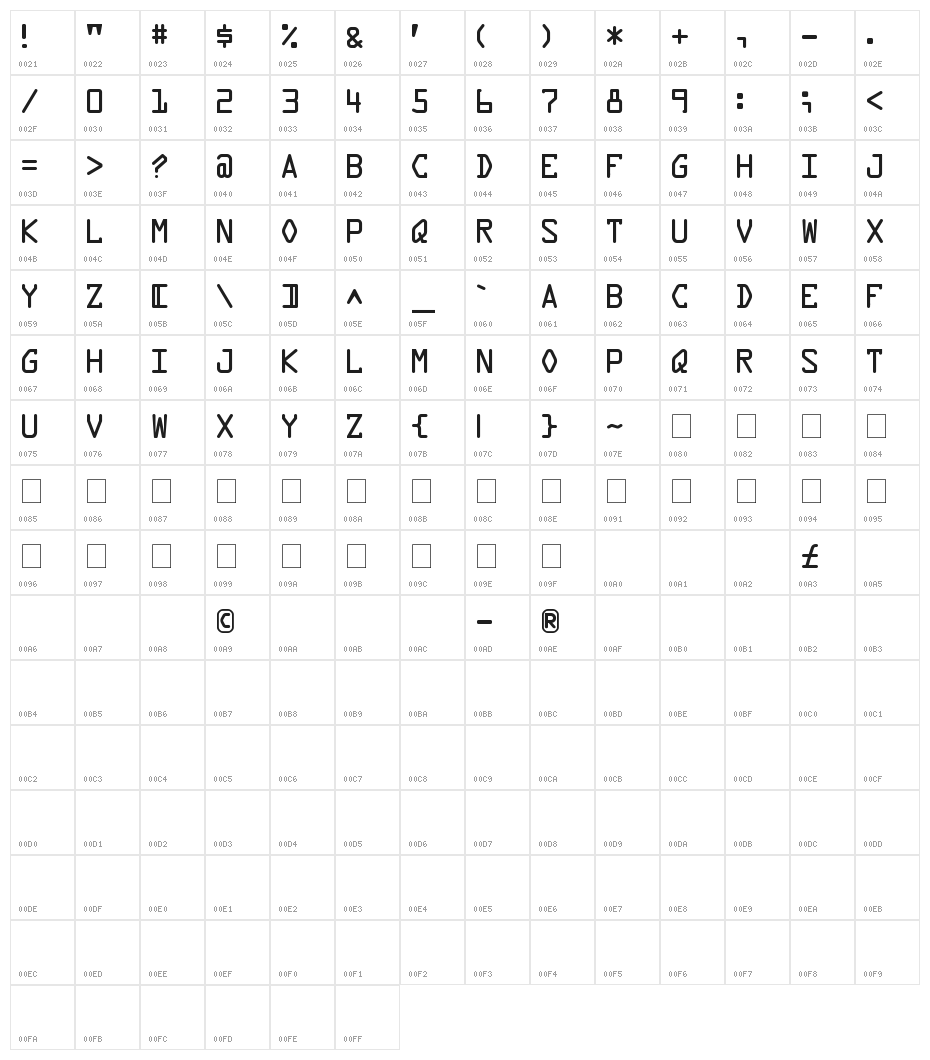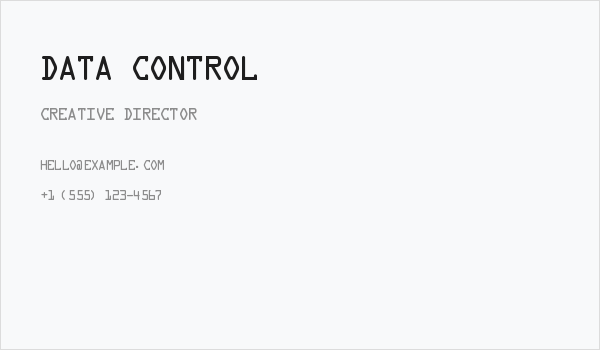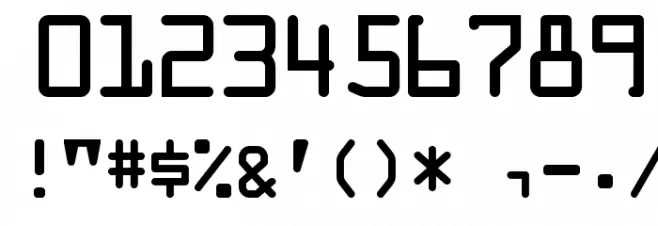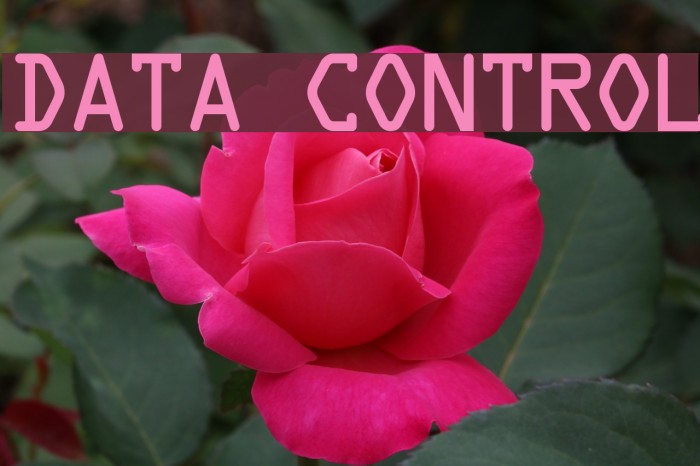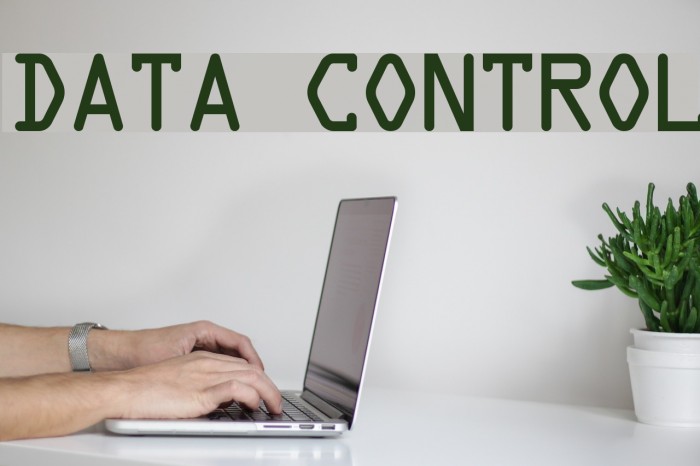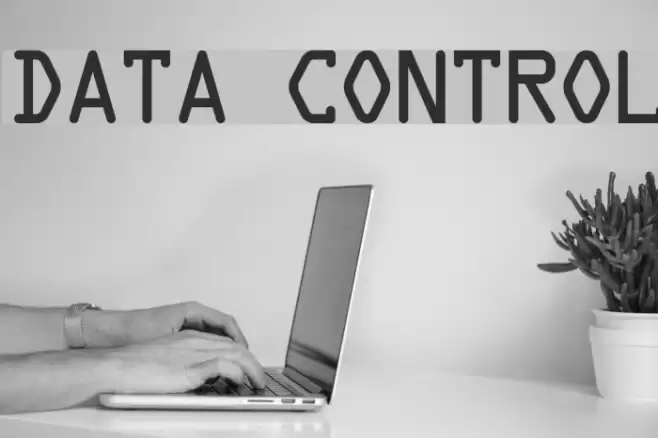
Data Control Font
Data Control Description
This font features a geometric and futuristic design, characterized by its bold and angular letterforms. The characters are constructed with consistent stroke widths, giving it a uniform appearance. The uppercase and lowercase letters share a similar structure, enhancing its modern and technical feel. The numerals and special characters maintain the same stylistic approach, ensuring coherence throughout the typeface. Its distinct and clean lines make it suitable for digital and technological themes, offering a contemporary aesthetic that stands out in various applications.
| Proposed Projects | Ideal for technology branding, digital interfaces, video game design, and futuristic-themed posters. |